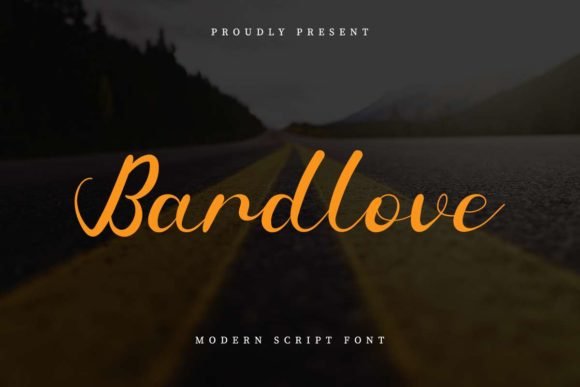
Introduction to Bardlove Font
Bardlove is an exquisite handwritten font, masterfully designed to become a true favorite.
Why Choose Bardlove Font?
Bardlove Font offers exceptional quality and versatility, making it a valuable addition to your design toolkit. Whether you’re creating for personal projects or commercial use, Bardlove Font delivers professional results.